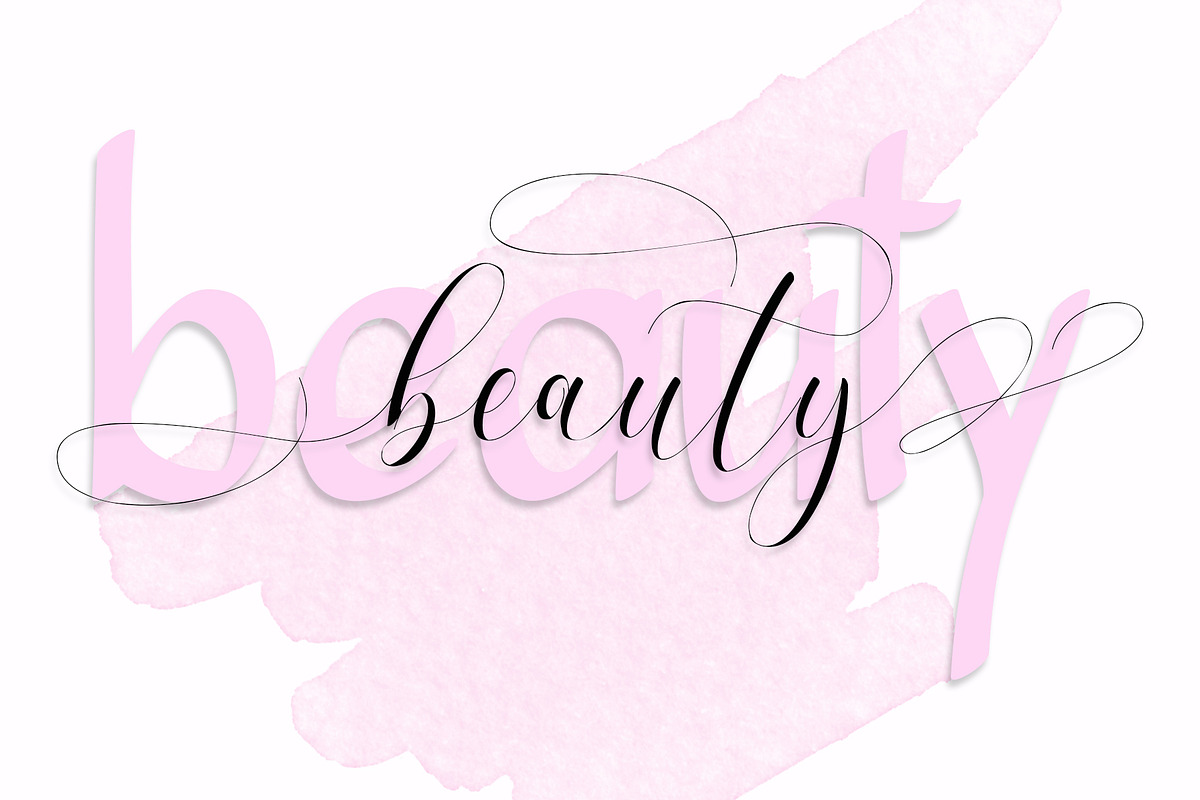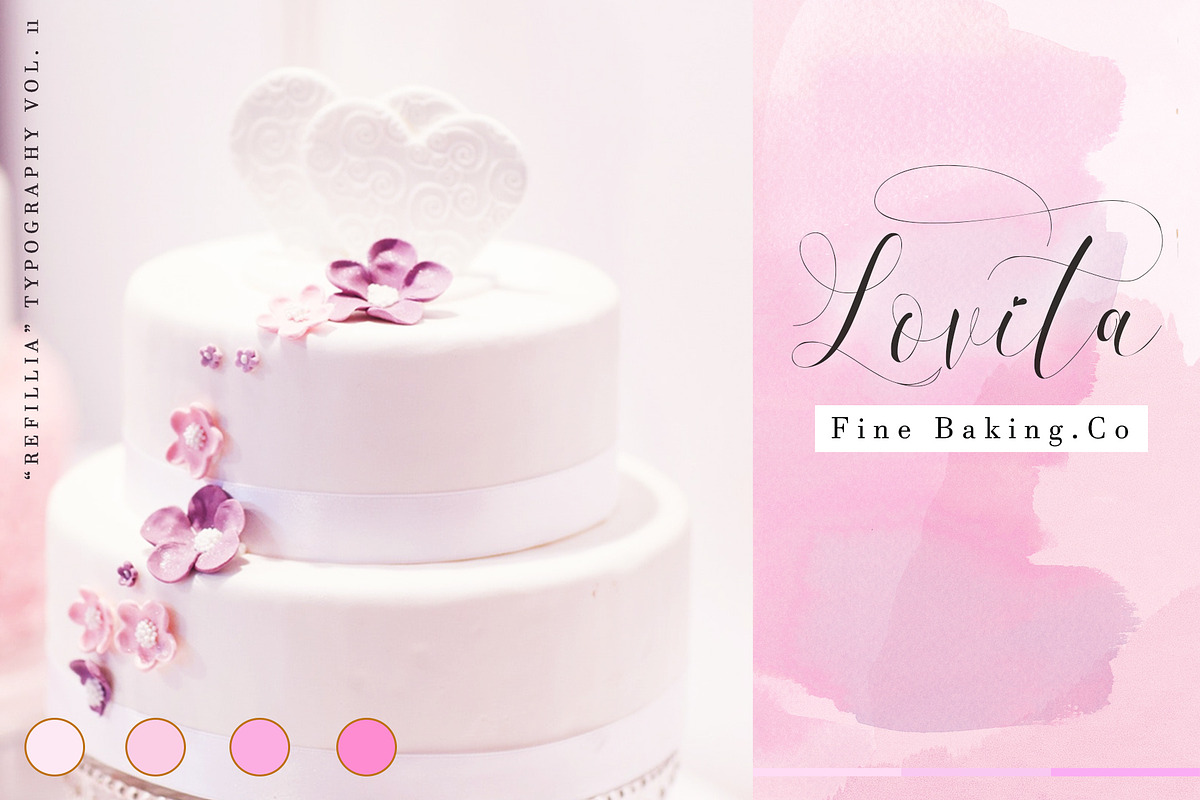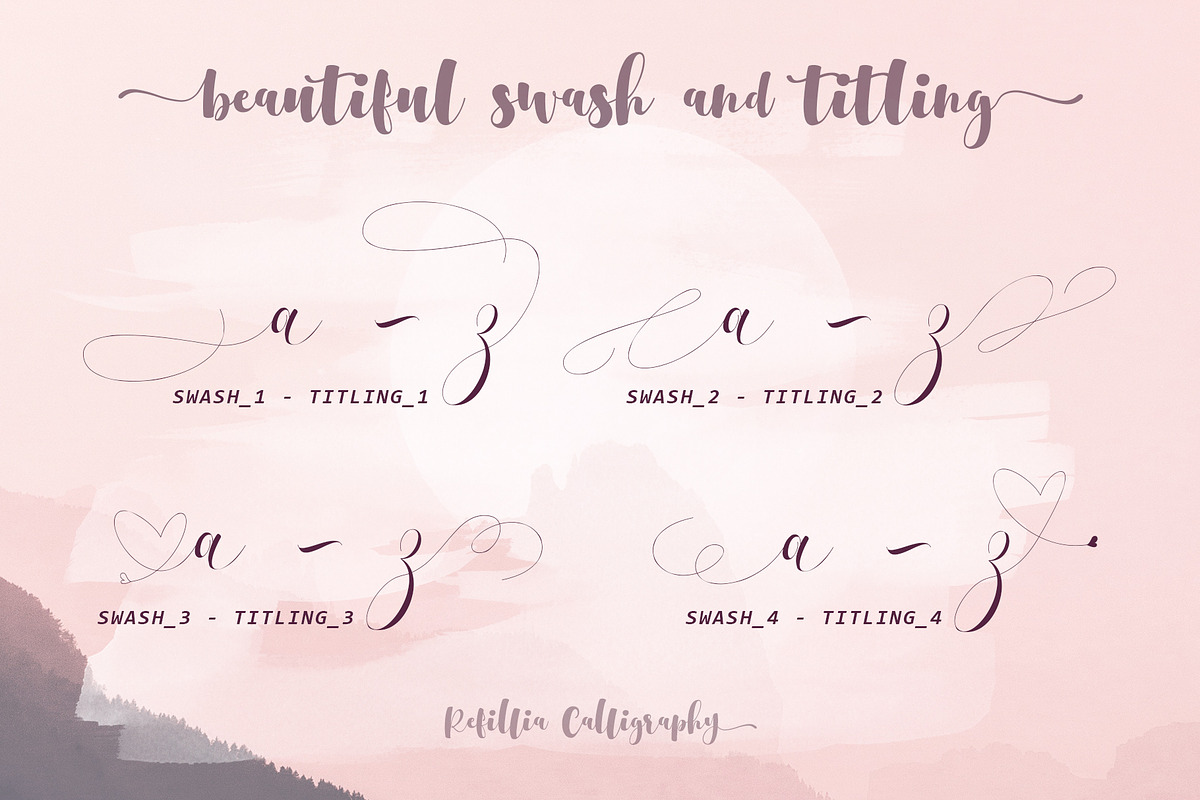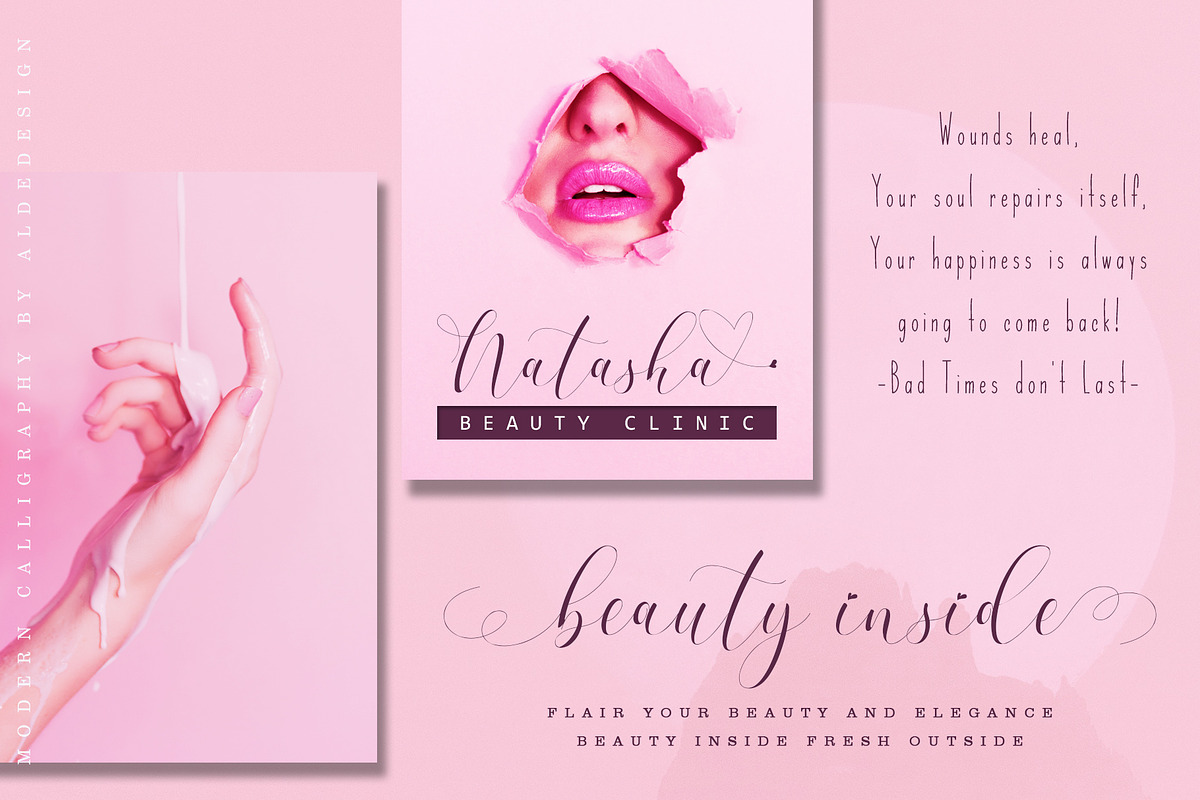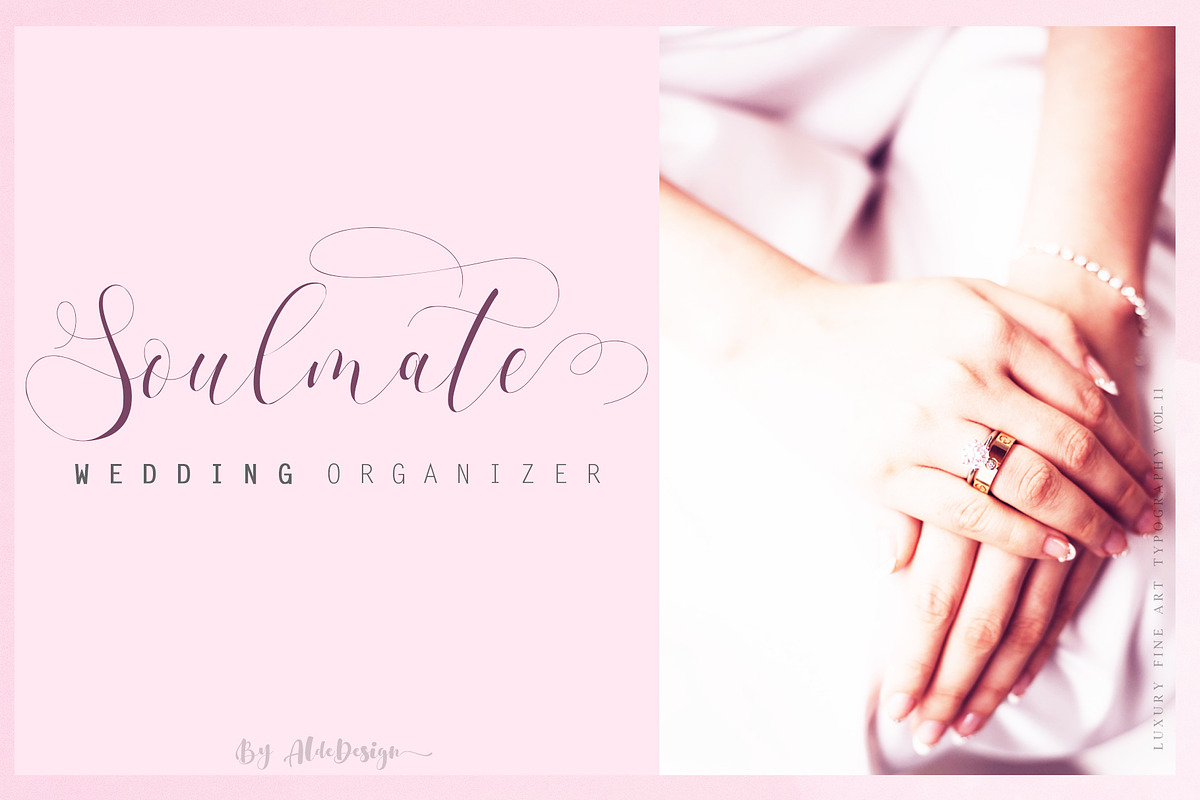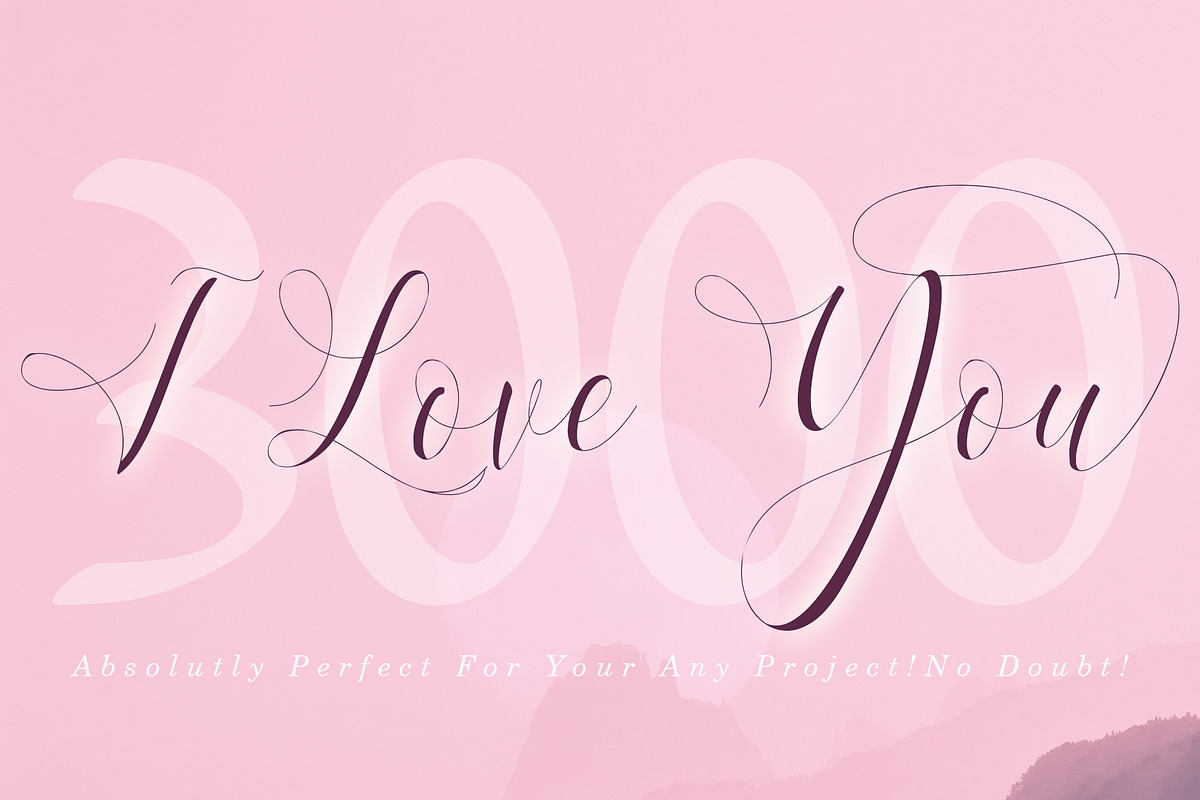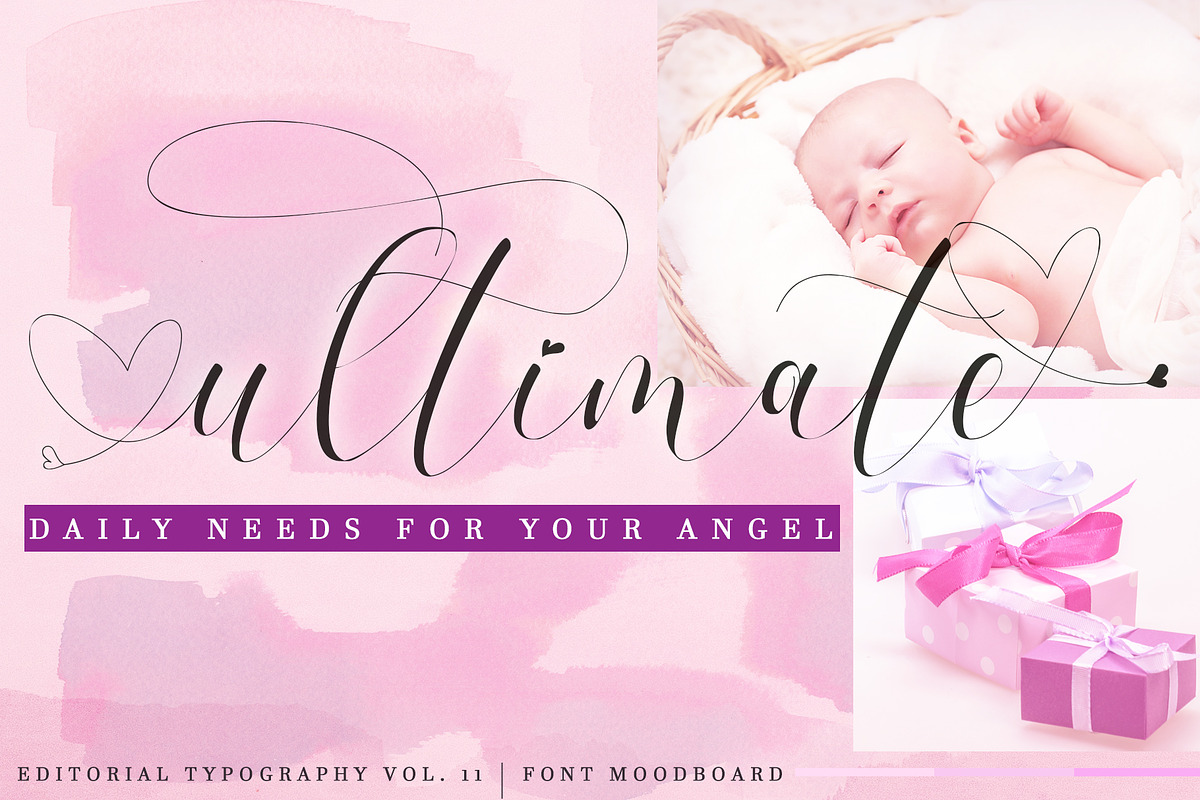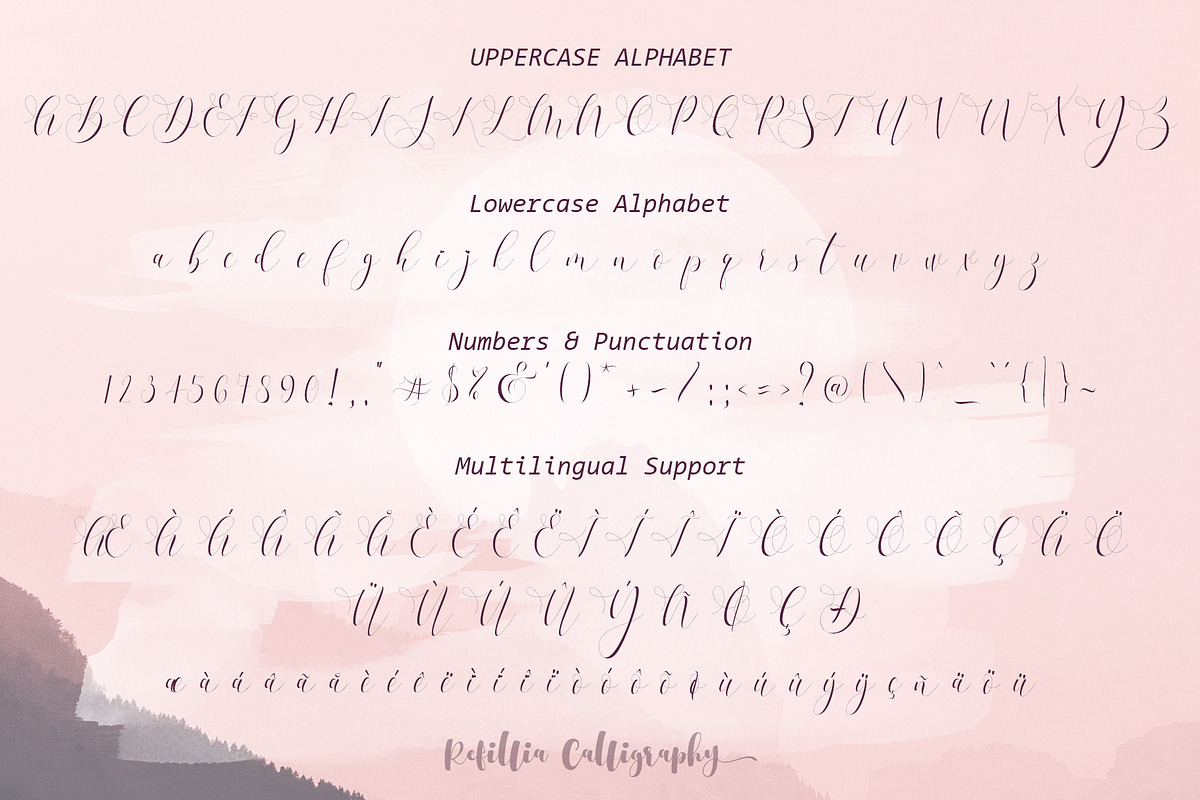
Refillia Calligraphy 'Beauty'
Refillia Calligraphy is a stylish calligraphy font that features a varying baseline, smooth line, modern and with a depth love. For those of you who are need a touch of love and modernity for your designs or branding, it can be used for various purposes such as headings, wedding, invitation, signature, logos, branding, t-shirt, letterhead, signage, lable, news, posters, badges etc.
Just imagine that your customers are women. They love to see something beautiful, elegant, and warm, right? You don’t need to get confused to find an interesting font to attract their attention. We have a special font namely "Refillia". The font design looks simple without losing its elegance and warmness. The function of the font is to show that you have a modern spirit to serve high-quality products and services. We design this font with OpenType features to give an artistic touch on it. This font is also applicable for numbers, punctuation, and other languages. It is also a multifunction font where you can use for a business logo, branding, wedding invitation, and anything you want.